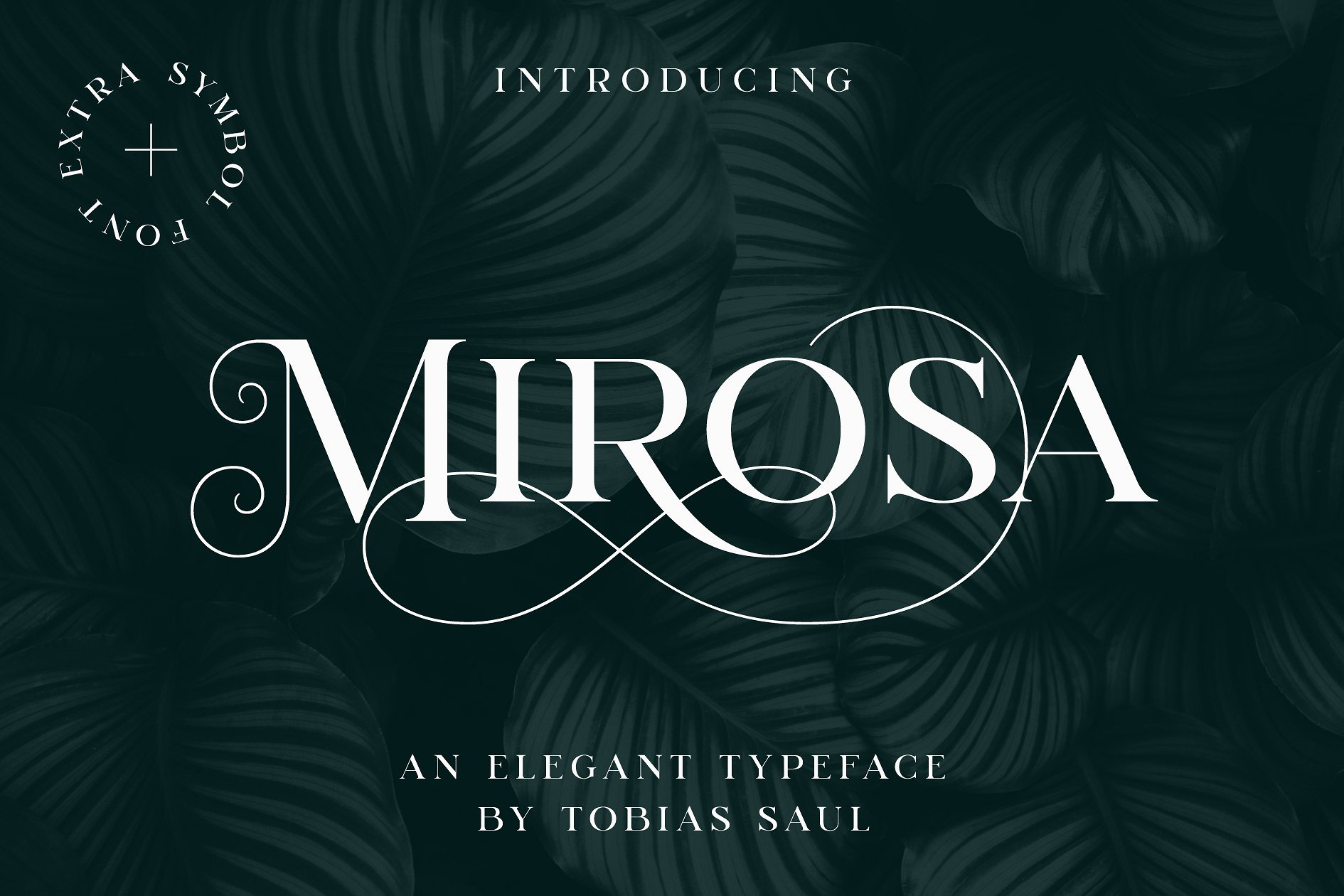
Mirosa Font
Mirosa Font is perfect for rose garden branding, romantic floral shops, elegant wedding services, botanical beauty products, feminine lifestyle marketing, luxury perfume packaging, garden center communications, and blooming advertising campaigns. This elegant typeface works beautifully in both digital applications and print media where floral sophistication and romantic elegance are essential design elements.
What makes Mirosa Font so exciting is its exquisite interpretation of rose garden beauty and romantic elegance through graceful letterforms that seem to bloom with the same delicate sophistication and timeless appeal that defines the most beloved floral experiences. The font features refined characters with rose-inspired proportions, floral curves, and romantic details that create an immediate atmosphere of beauty, elegance, and the enchanting quality that makes roses the ultimate symbol of love and refinement. Its romantic personality and botanical heritage make it ideal for brands seeking to communicate floral elegance while appealing to audiences who appreciate natural beauty, romantic sophistication, and the timeless charm of garden culture.
The Mirosa Font family includes multiple weight variations with different blooming intensities, along with floral alternates and romantic ornamental elements. Each style maintains the typeface's elegant character while offering comprehensive character sets including refined numerals, romantic punctuation marks, and special symbols designed to enhance floral communications and elegant branding efforts across various botanical contexts.
This remarkable typeface represents the perfect fusion of botanical inspiration and contemporary design functionality for beauty and lifestyle industries. Whether you're developing floral business identities, creating romantic event materials, or designing luxury beauty campaigns, Mirosa Font Free Download provides the floral sophistication and versatility needed to captivate romance-loving audiences. The font's rose-inspired appeal makes it particularly effective for florists, wedding planners, beauty brands, and businesses celebrating the timeless beauty and romantic elegance of roses and garden culture.
The meticulously crafted floral details and optimized romantic performance in Mirosa Font ensure both botanical authenticity and clear communication across all elegant applications. Its graceful presence makes it perfect for floral branding, romantic marketing materials, and elegant communications where its full rose-inspired character can create lasting connections with audiences who cherish the beauty, romance, and sophisticated elegance that roses represent in gardens, relationships, and the most memorable moments of life.